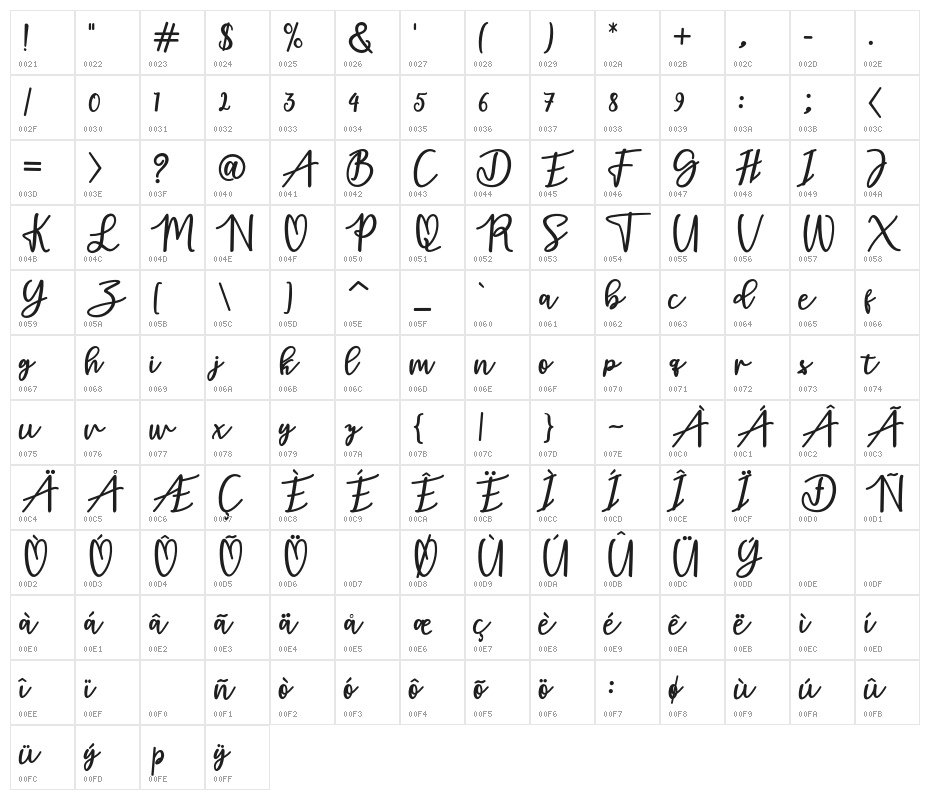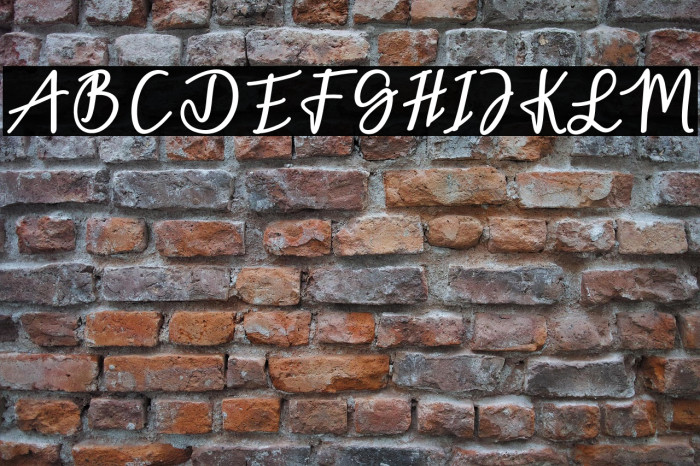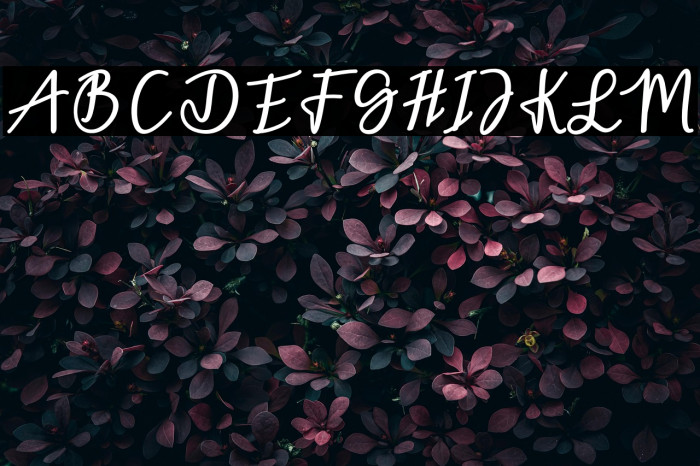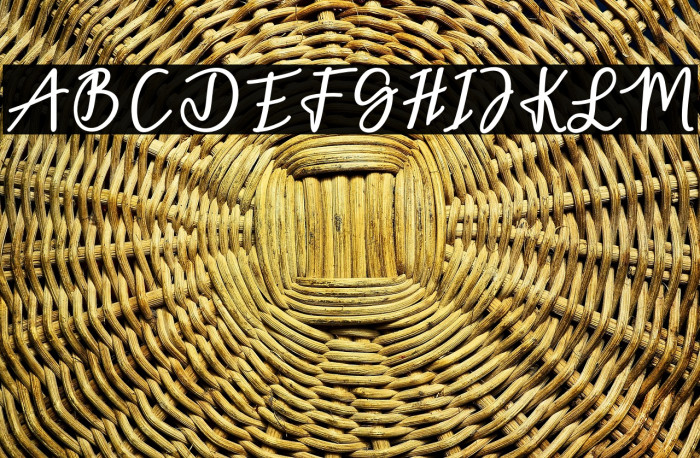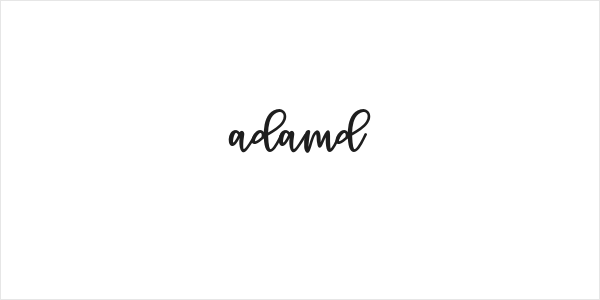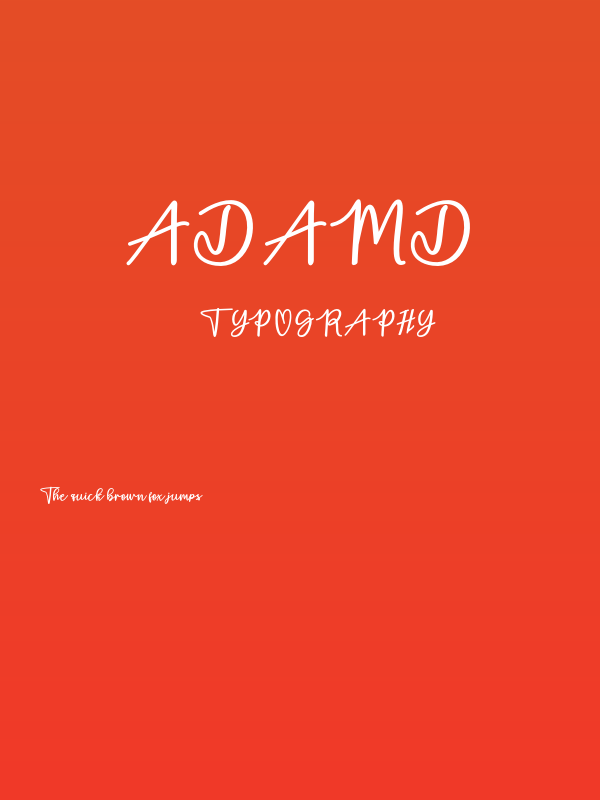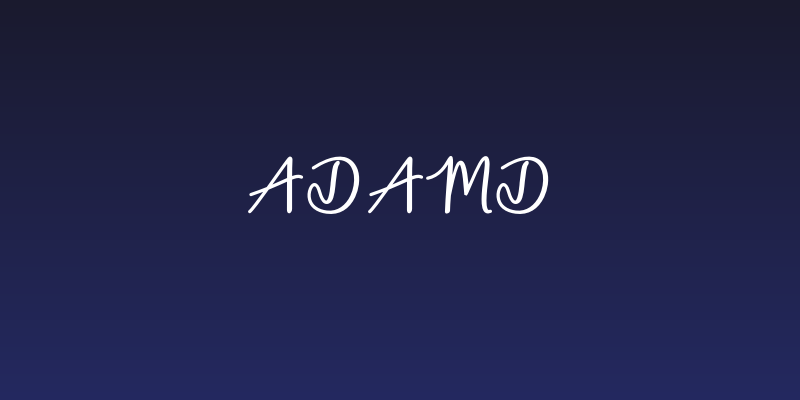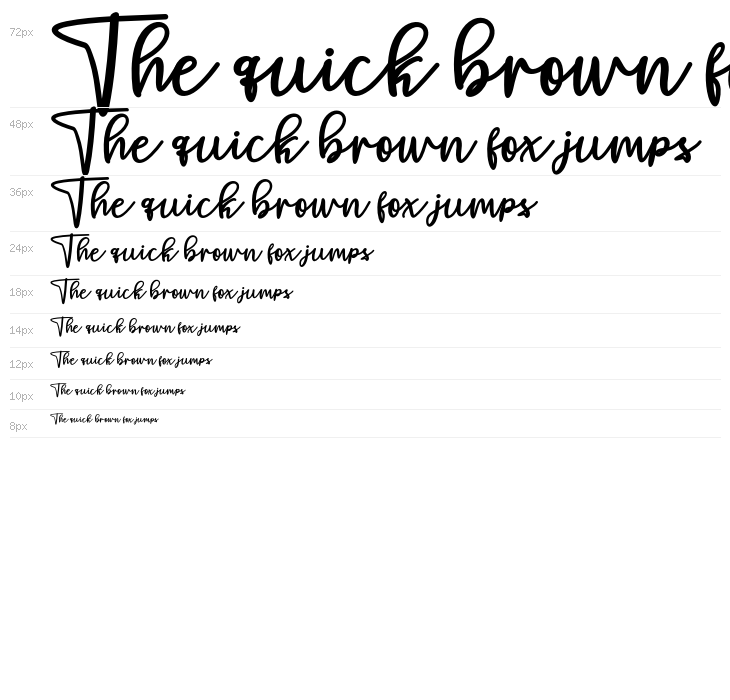
adamd Font
adamd Description
This font features a playful and energetic script style with a handwritten appearance. The uppercase letters have a casual, flowing form, while the lowercase letters are more rounded and bold, creating a dynamic contrast. The numbers maintain the same lively style, making them easily readable yet visually engaging. Special characters are thoughtfully designed to match the overall aesthetic, adding to the font's versatility. The strokes vary in thickness, providing a medium contrast that enhances readability while maintaining a stylish look.
| Use Case | Logos, Headlines, Invitations |
| Proposed Projects | Ideal for greeting cards, invitations, branding projects, and social media graphics. |